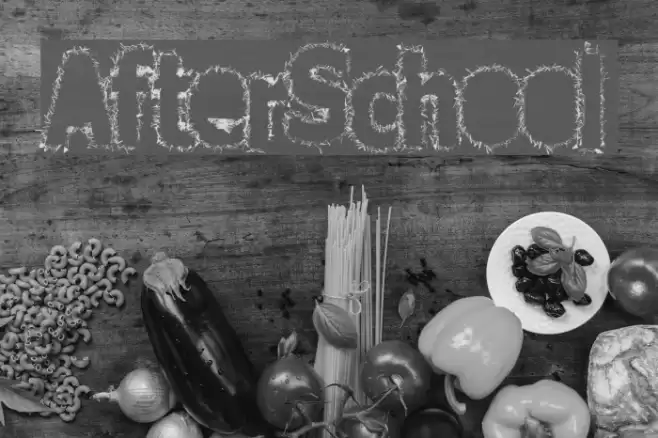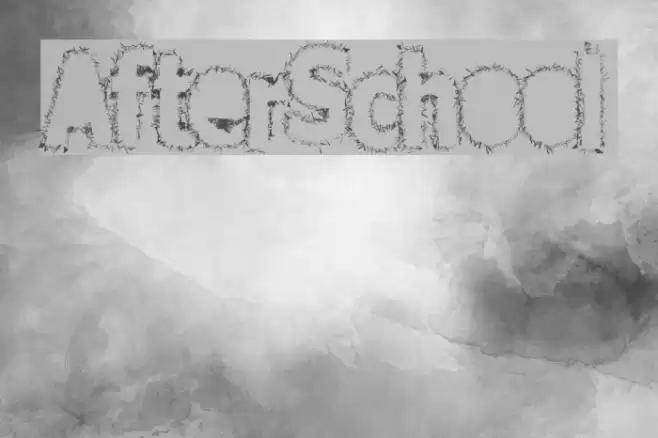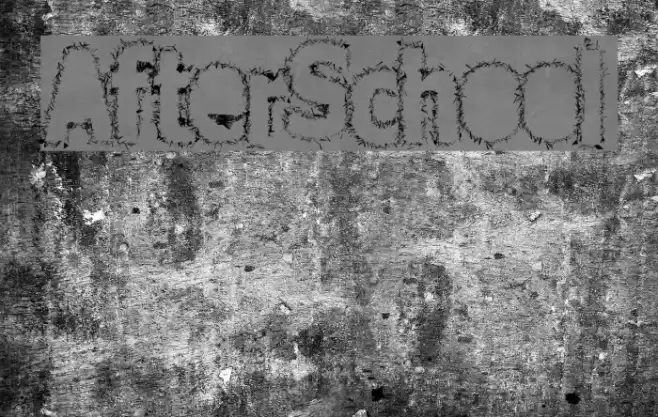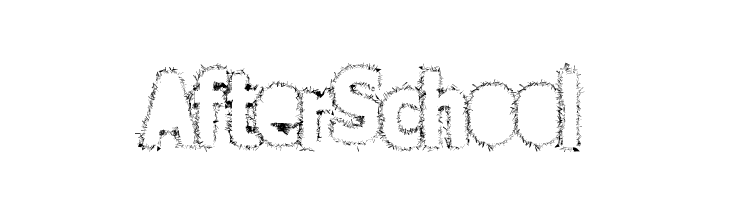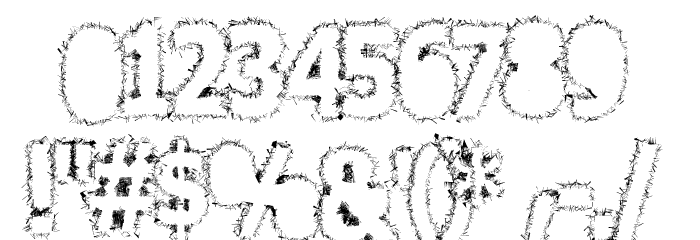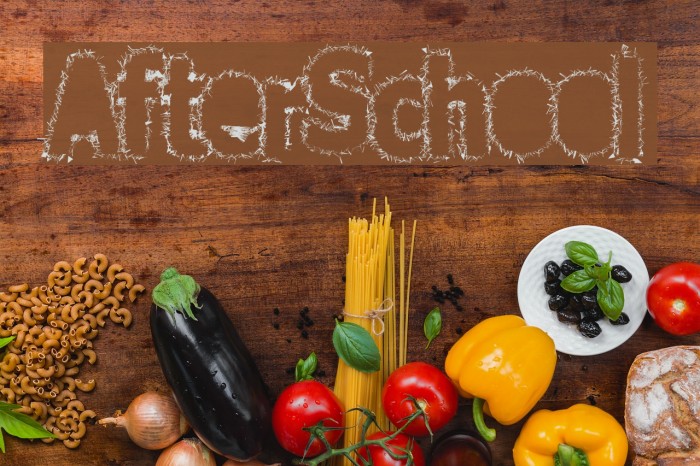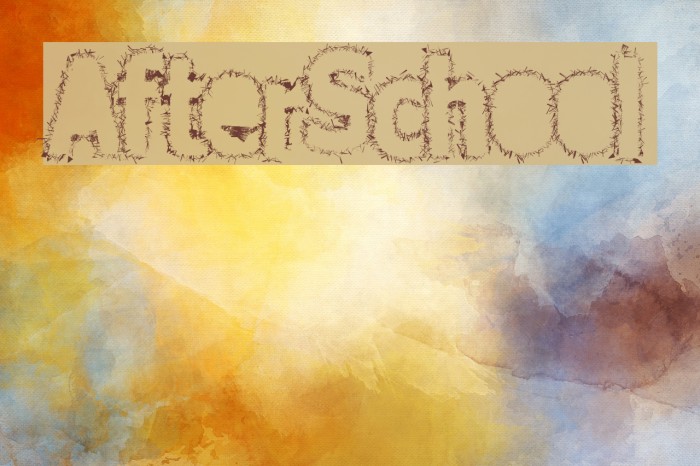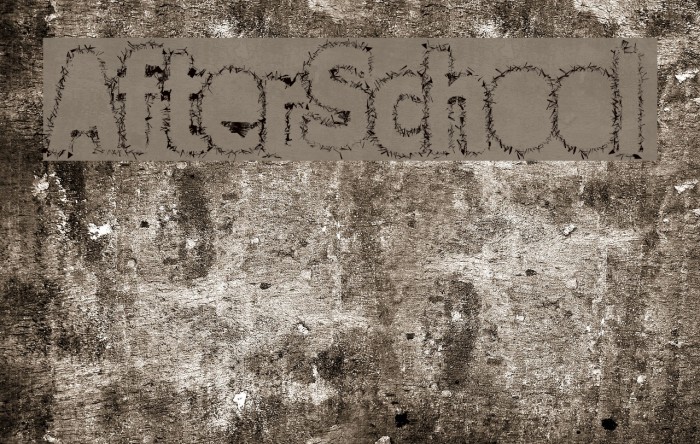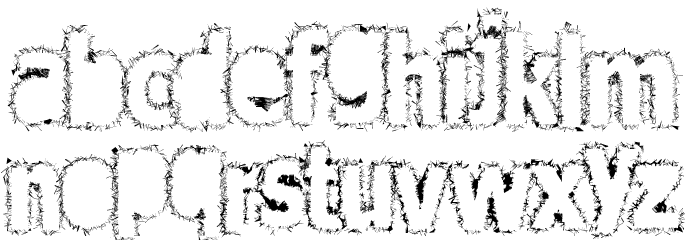
AfterSchool Font
AfterSchool Description
This font features a unique and playful design, characterized by its fuzzy, textured outlines that resemble a hand-drawn or sketched style. The letters are bold and have a whimsical appearance, making them stand out with their irregular, jagged edges. This distinctive style gives the font a dynamic and energetic feel, perfect for creative and informal projects. The uppercase and lowercase letters maintain a consistent style, while the numbers and special characters follow the same playful theme, ensuring a cohesive look across all text elements.
A playful, textured font with fuzzy, hand-drawn outlines from Uncategorized fonts.
- Proposed Projects: Ideal for children's book covers, playful branding, event posters, and creative social media graphics.
- Overall Style: Playful, Creative